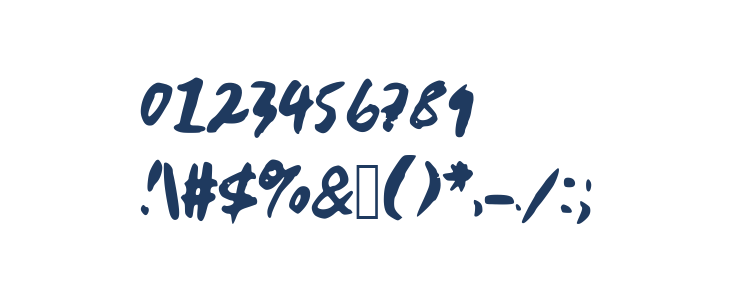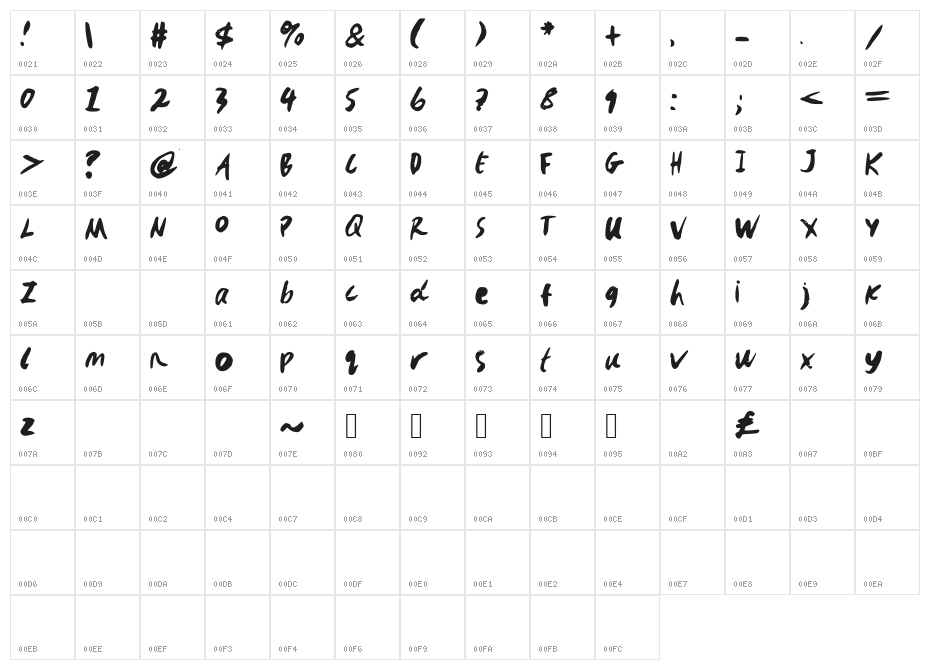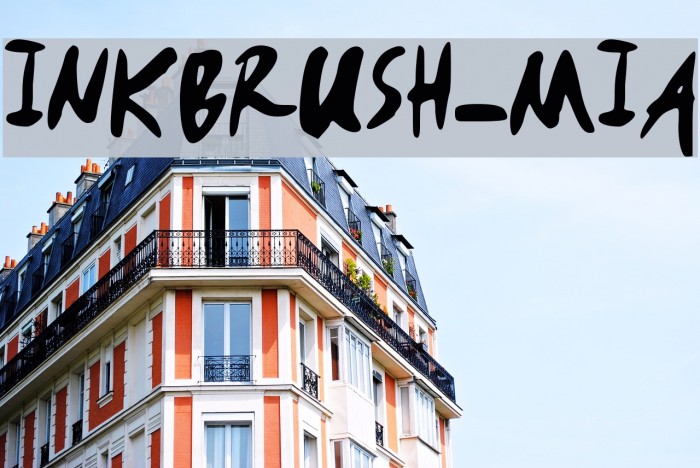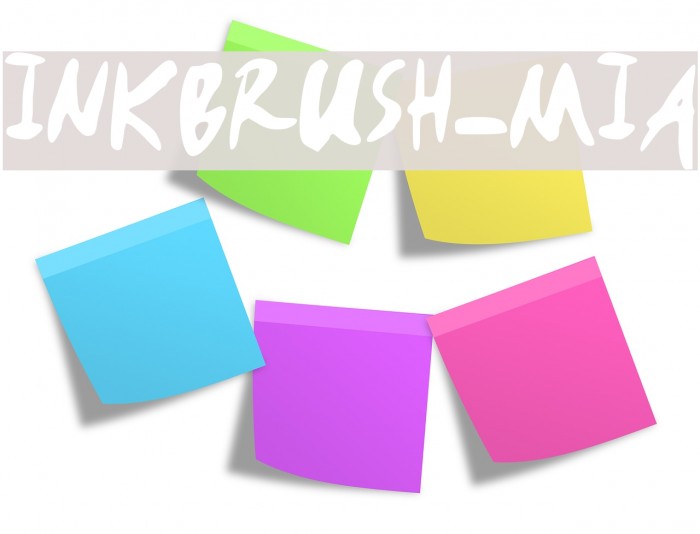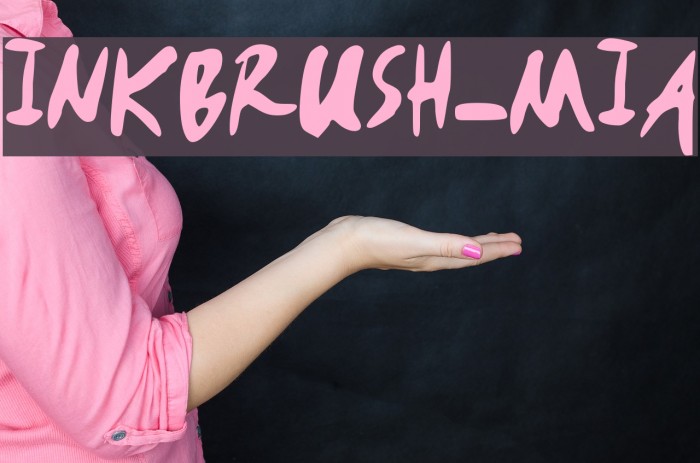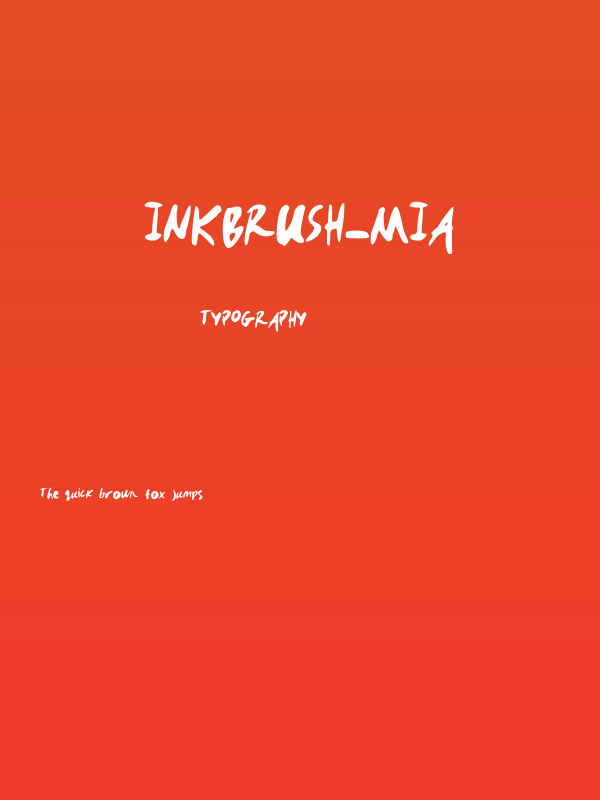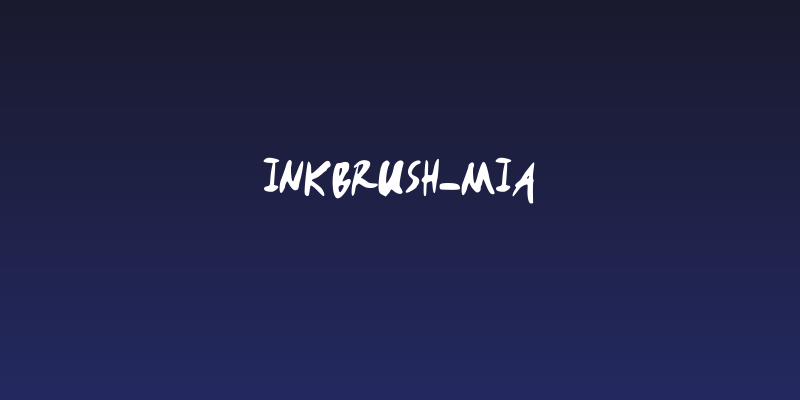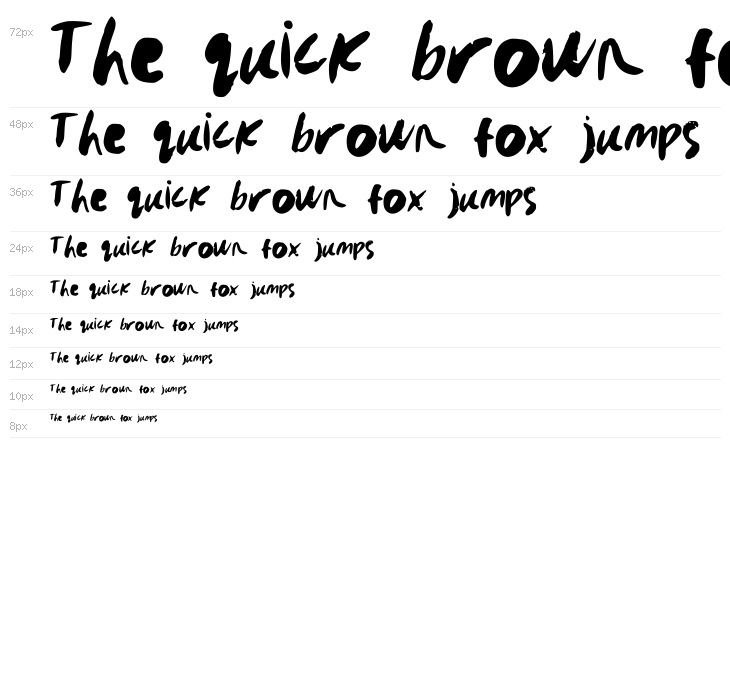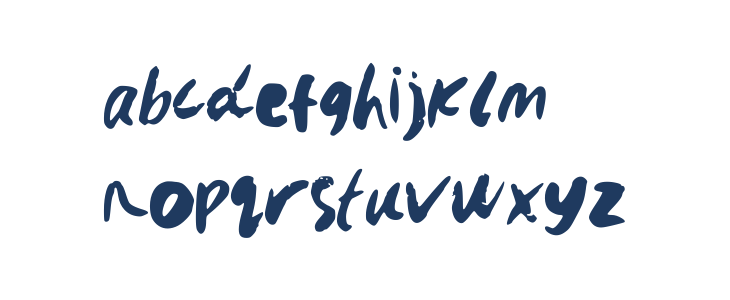
INKBRUSH-MIA Font
INKBRUSH-MIA Description
This font features a bold and expressive brush style, reminiscent of ink strokes on paper. The characters are dynamic and fluid, with a natural, hand-drawn appearance that conveys a sense of creativity and spontaneity. The uppercase and lowercase letters maintain a consistent style, with varying stroke widths that add to the organic feel. Numbers and special characters are equally expressive, making the font versatile for artistic projects. The overall impression is one of energy and movement, suitable for designs that require a personal touch.
| Proposed Projects | Ideal for artistic projects, branding, posters, and invitations where a personal and creative touch is desired. |